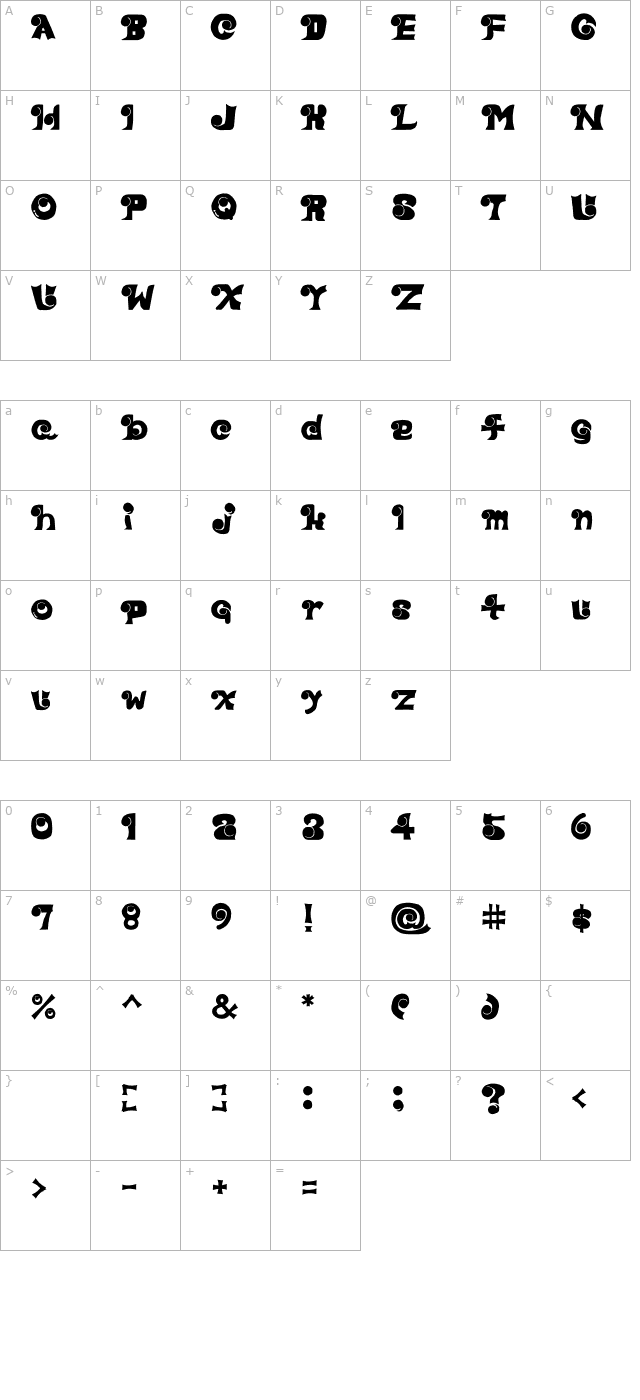
Printable Eye Charts Best Font For Eyes Reading Combined with a new typesetting engine, amazon.com asserts that the font helps the user “read faster with less eyestrain.” They’re comfy, easy on the eyes, and work great for everyone!. In this blog, we’re going to show you nine fantastic fonts that are like reading besties. What is the easiest font to read? Explore the best fonts for reading: Think. Best Font For Eyes Reading.
Eye Test Chart Letters Chart Vision Exam Vector Image The Best Porn Best Font For Eyes Reading In this blog, we’re going to show you nine fantastic fonts that are like reading besties. Check out the typetype list of the. Georgia is the easiest serif font to read as it was specifically crafted for the digital screens,. For readable fonts, consider those with simple, uncluttered designs, good spacing between letters (kerning), and clear horizontal. They’re comfy, easy. Best Font For Eyes Reading.